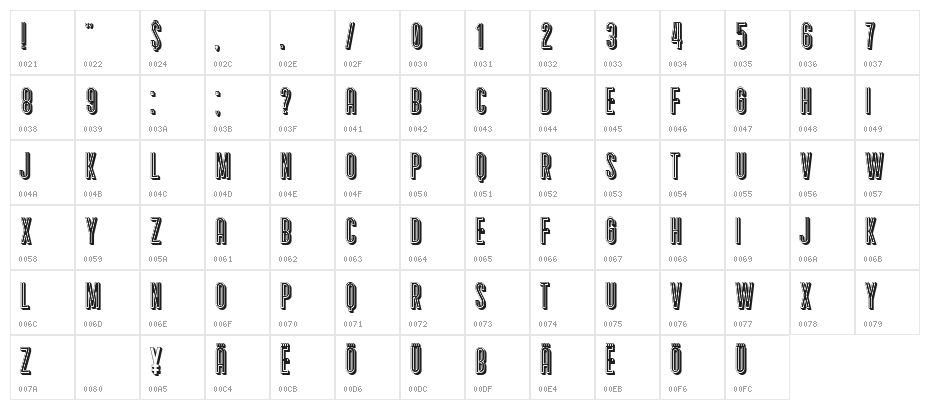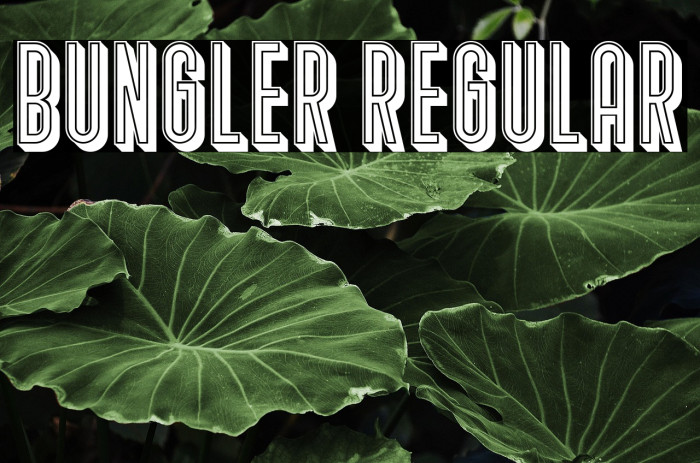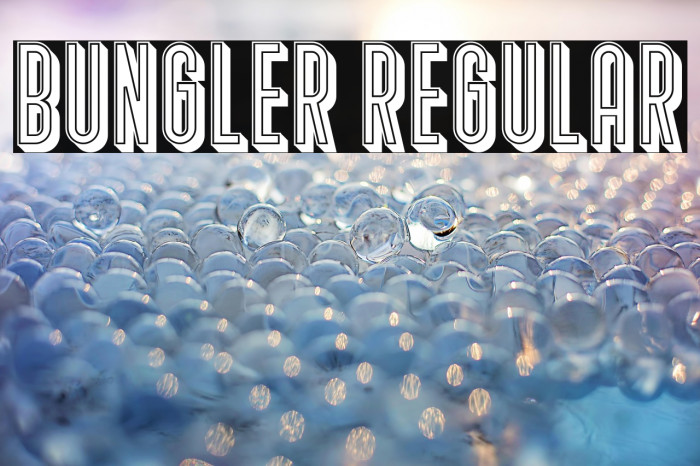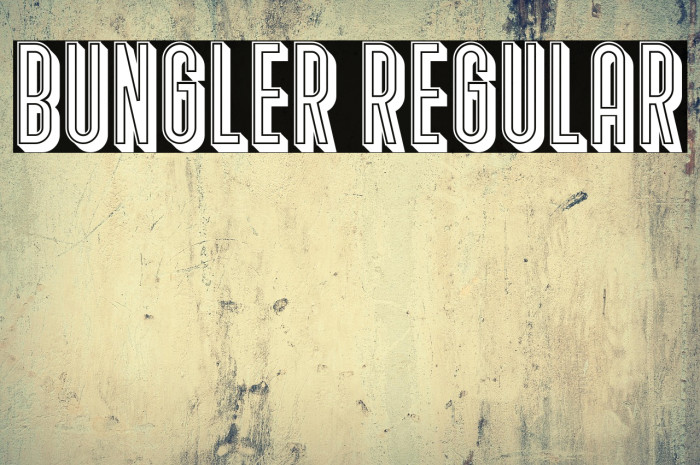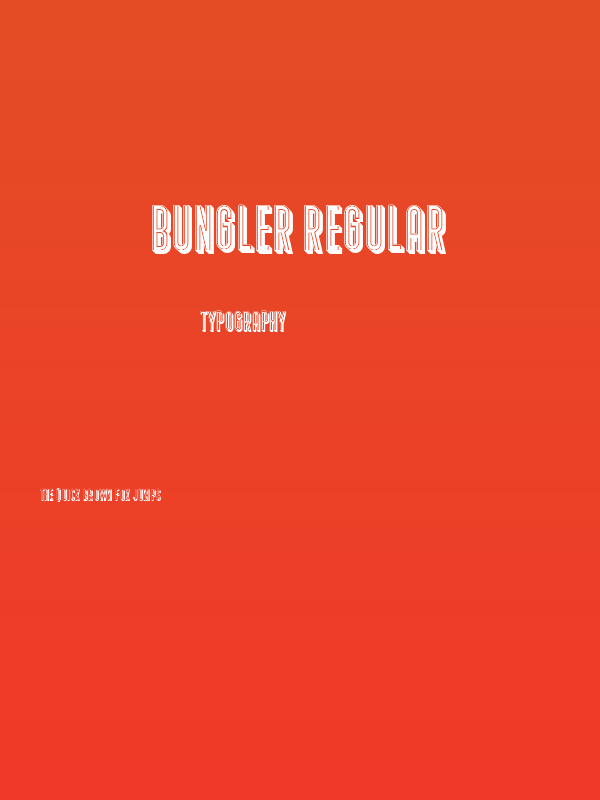
Bungler Regular Font
Bungler Regular Description
This font features a bold, decorative style with a strong presence. The characters are outlined with a thick black border, giving them a three-dimensional effect. The inner strokes are narrow, creating a high contrast between the thick outlines and the thin inner lines. This design choice makes the font highly legible and eye-catching, suitable for making a statement. The uppercase letters are uniform in height, while the numerals and special characters maintain the same bold and outlined aesthetic. The overall appearance is modern and dynamic, perfect for projects that require a bold and impactful typeface.
Proposed ProjectsIdeal for posters, headlines, logos, and branding materials that require a striking and memorable typeface.